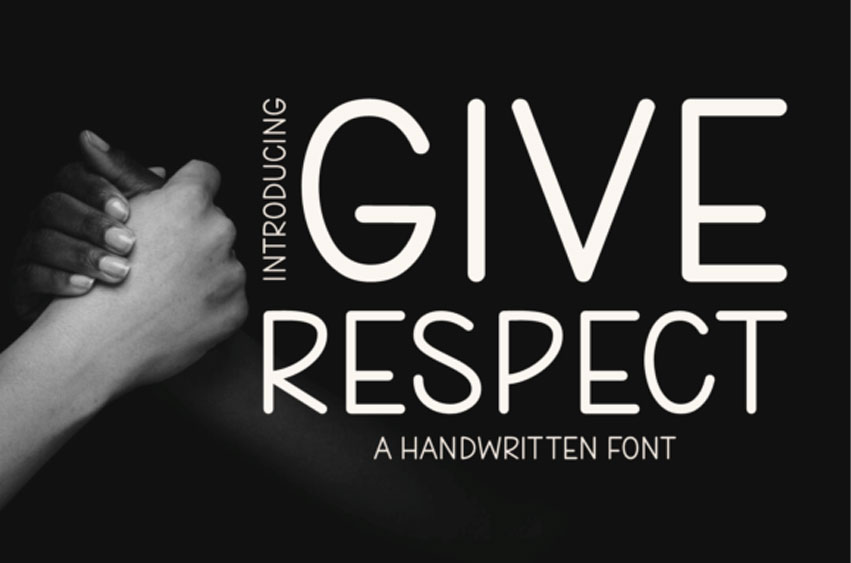
Give Respect Font
Give Respect Font is a friendly handwritten font that brings a personal touch to your text. With its casual and approachable style, this font adds warmth and sincerity to your messages.
Perfect for anything from notes to social media posts, Give Respect invites a sense of authenticity and connection. Choose this font to infuse your words with a genuine and relatable vibe, reminding everyone to give and receive respect in every message.